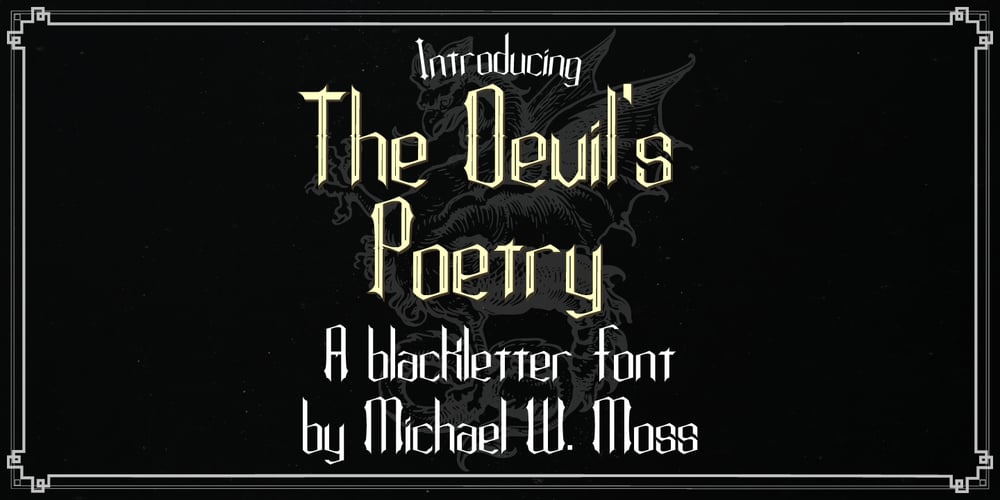
The Devils Poetry
The Devils Poetry font
The Devils Poetry Font Family was designed by Michael W. Moss and published by Michael W. Moss. The Devils Poetry contains 3 styles and family package options. The Devil’s Poetry is a new blackletter typeface from Michael W. Moss. The lowercase letters feature a pleasing hexagonal visual cadence while the capital letters stand tall and modestly ornate. The Devil’s Poetry is available in three styles and features a Unicode Latin Extended-A character set. “Sarcasm is The Devil’s Poetry.”